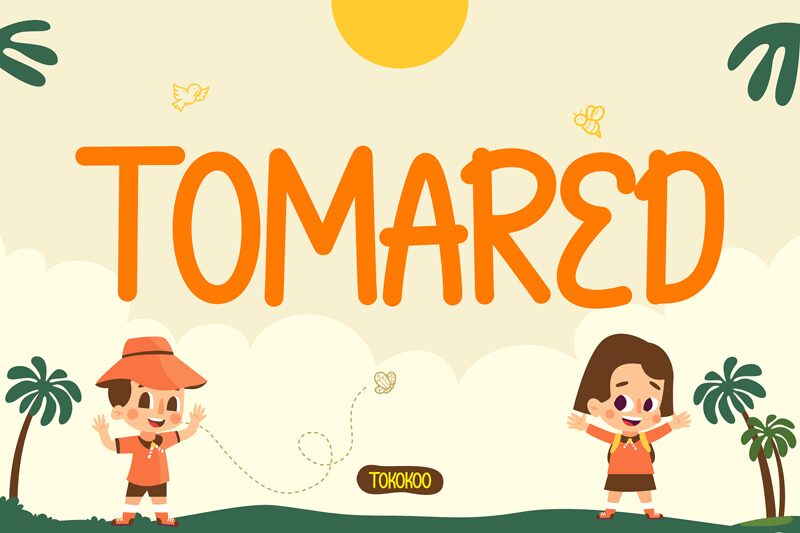
Tomared font family by Tokokoo Studio showcases a playful and dynamic fusion of friendly characters with a modern vibe. This free font family infuses vibrancy into your designs with playful letters that offer an inviting and approachable feel. Unconventional yet structured with rounded letters that bounce off each line, this handwritten font family brings energy to your digital and printed projects.
The typeface is built for food brands and product packaging designs as well as menus that poster your meat production, ice cream, shakes, or sandwich shop. Tomared is also highly useful for your business, blog, or personal website, social media posts, UI/UX designs, and coffee or takeaway cups.